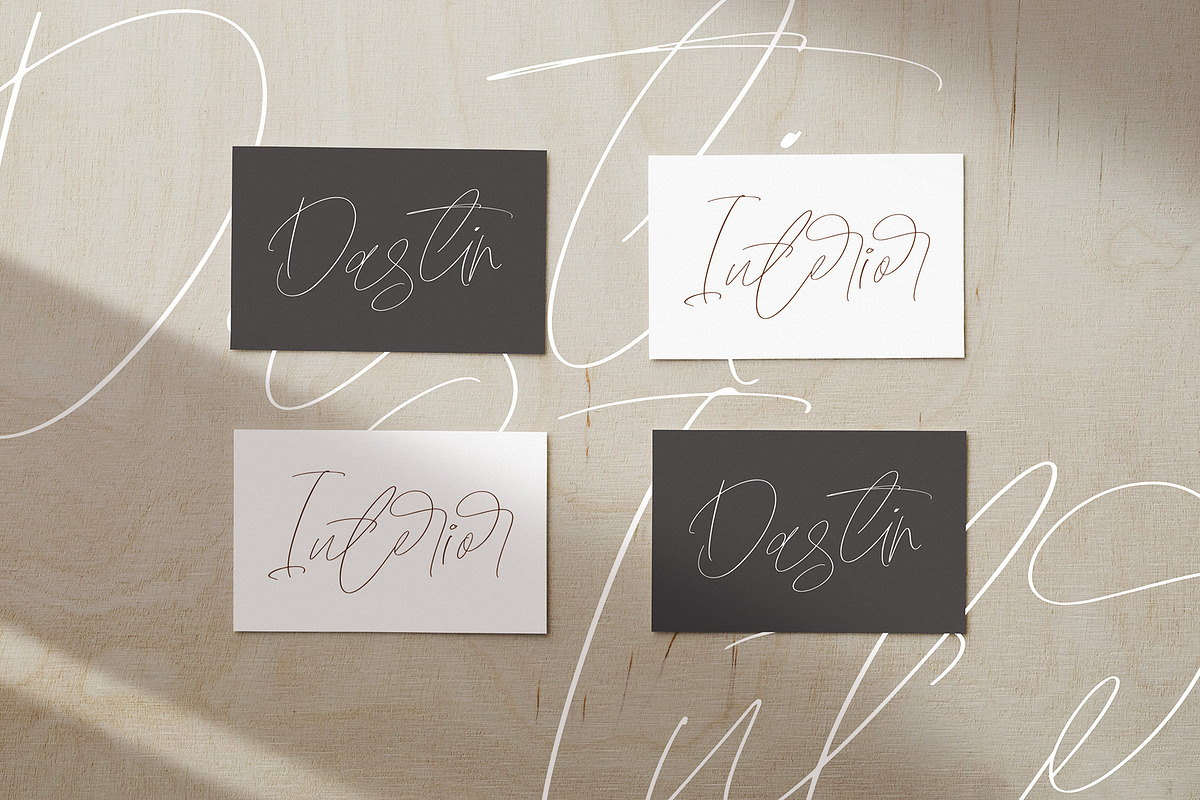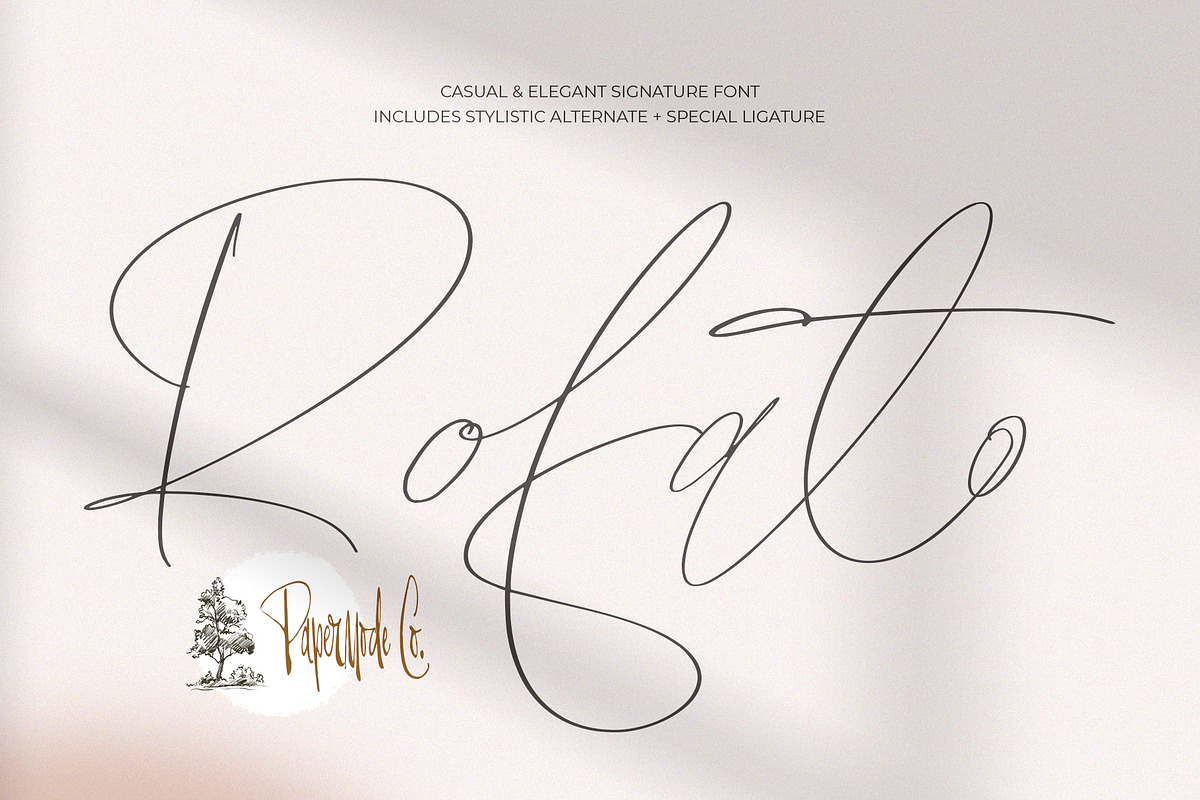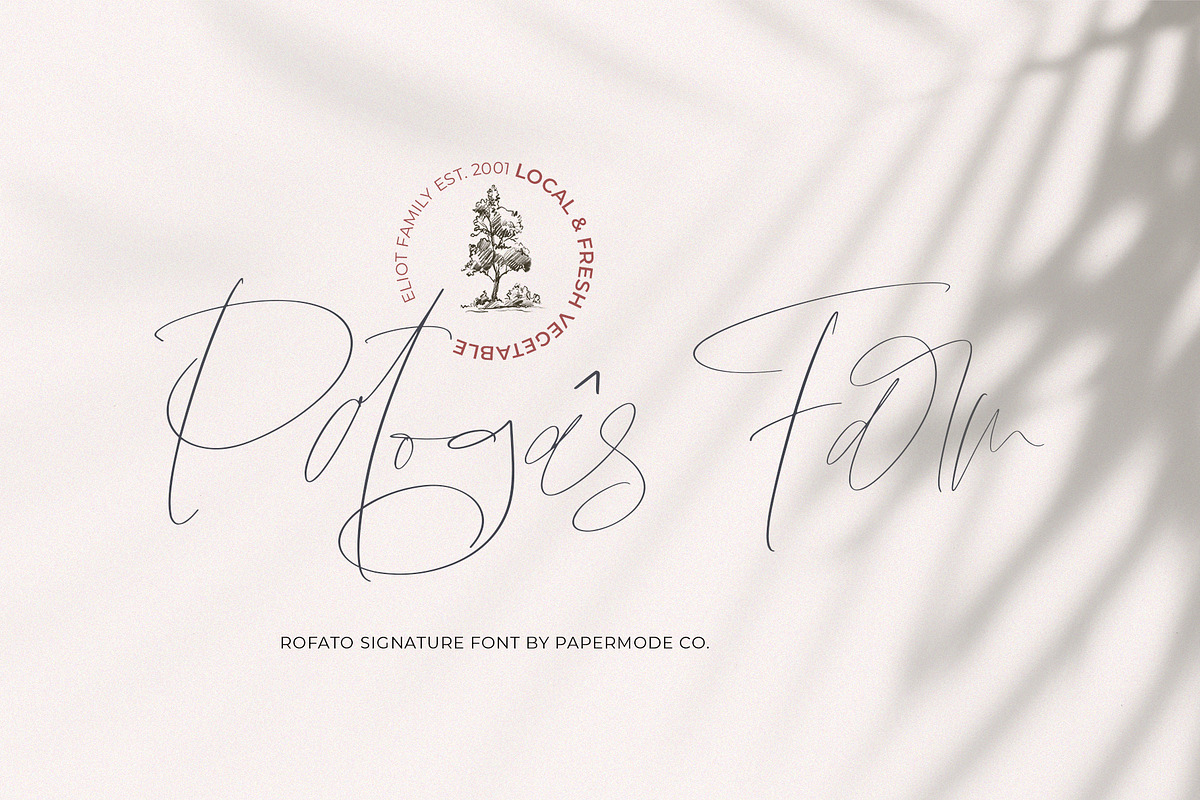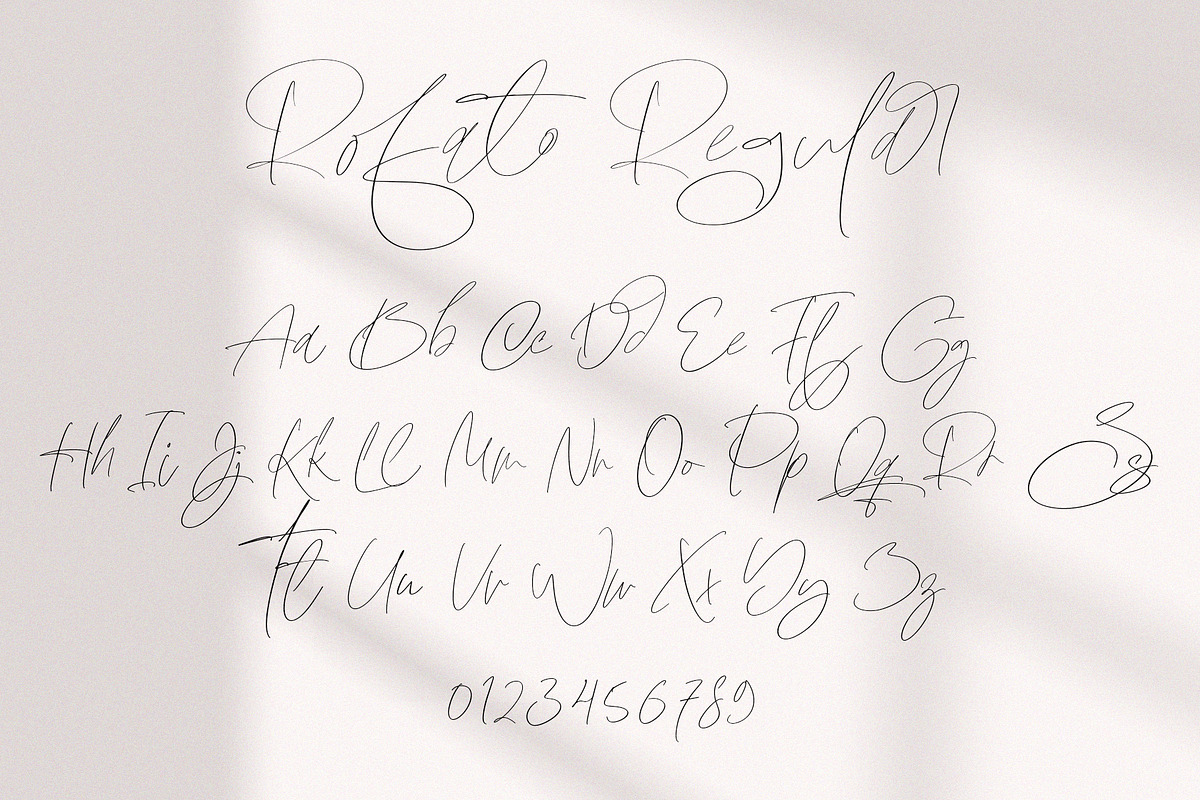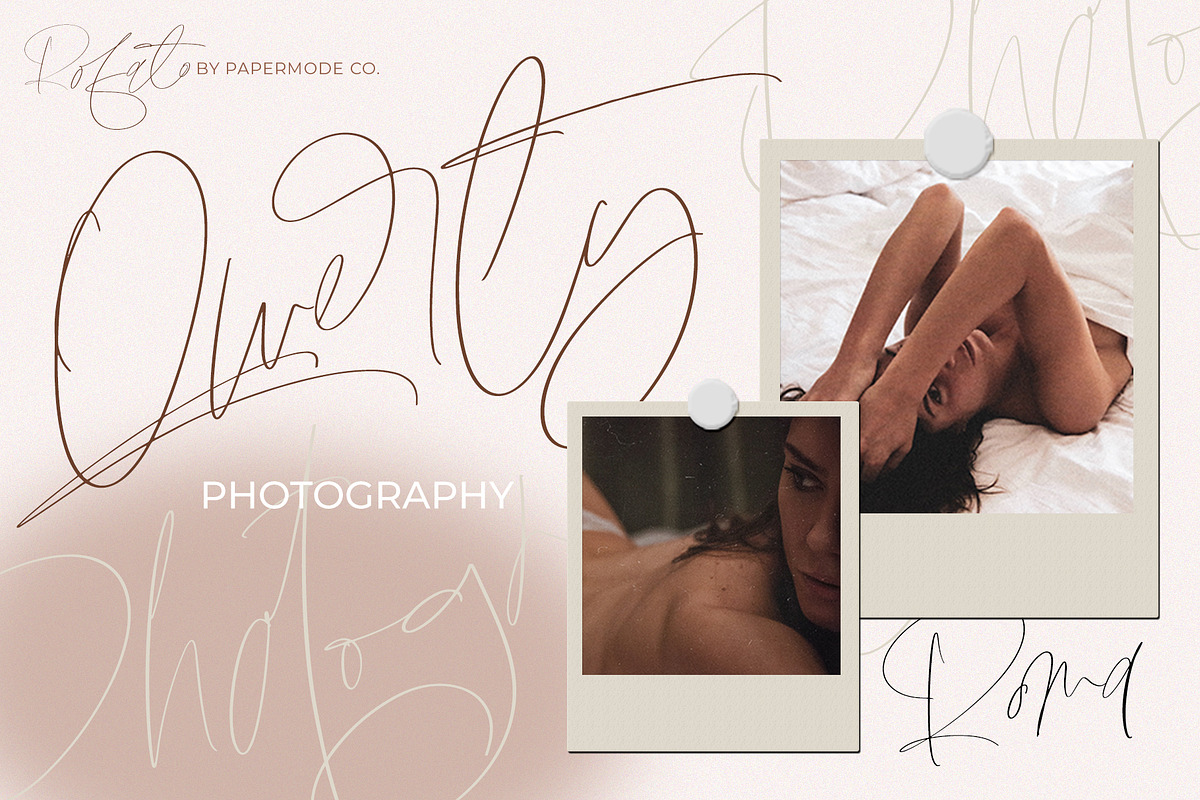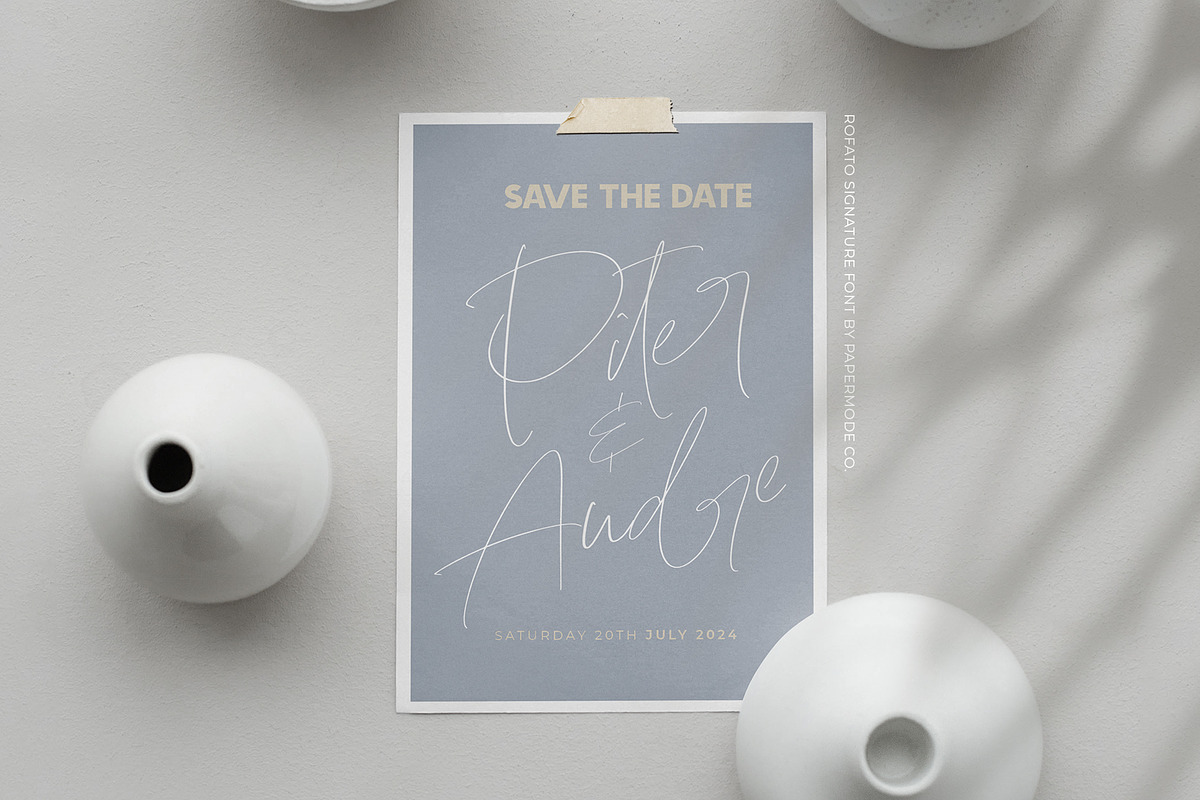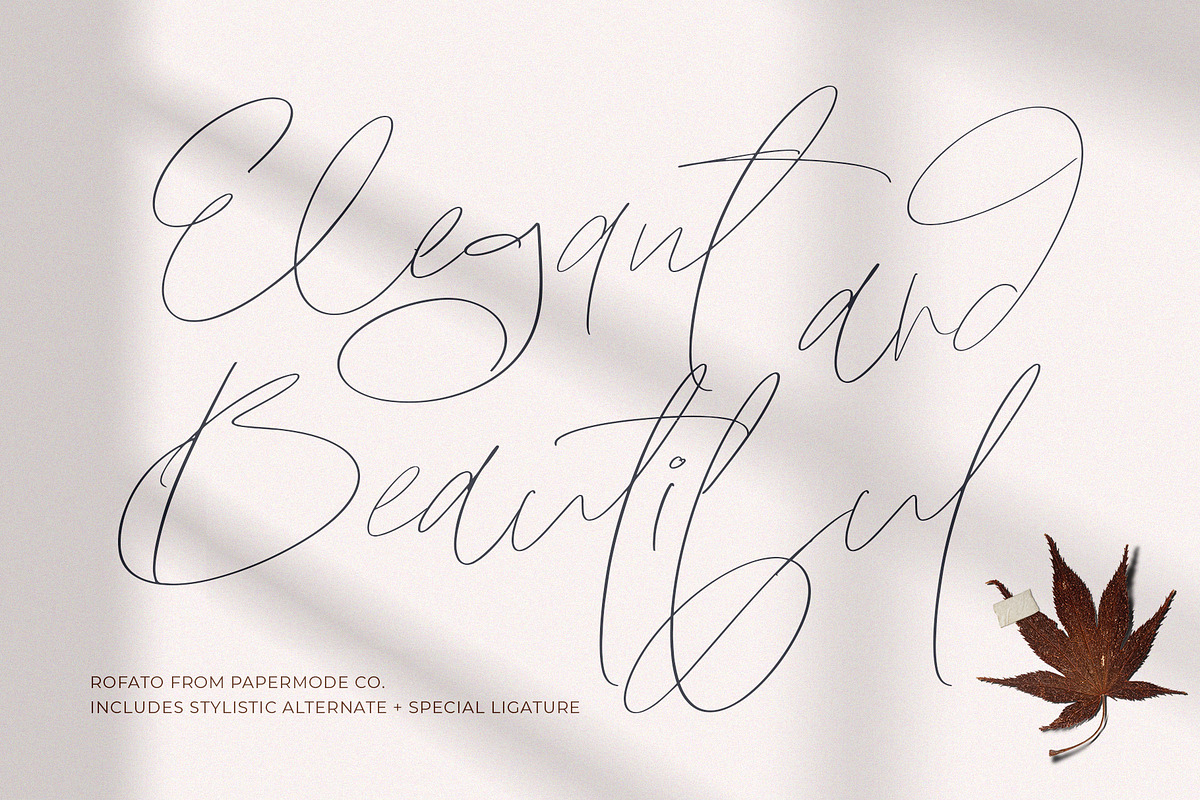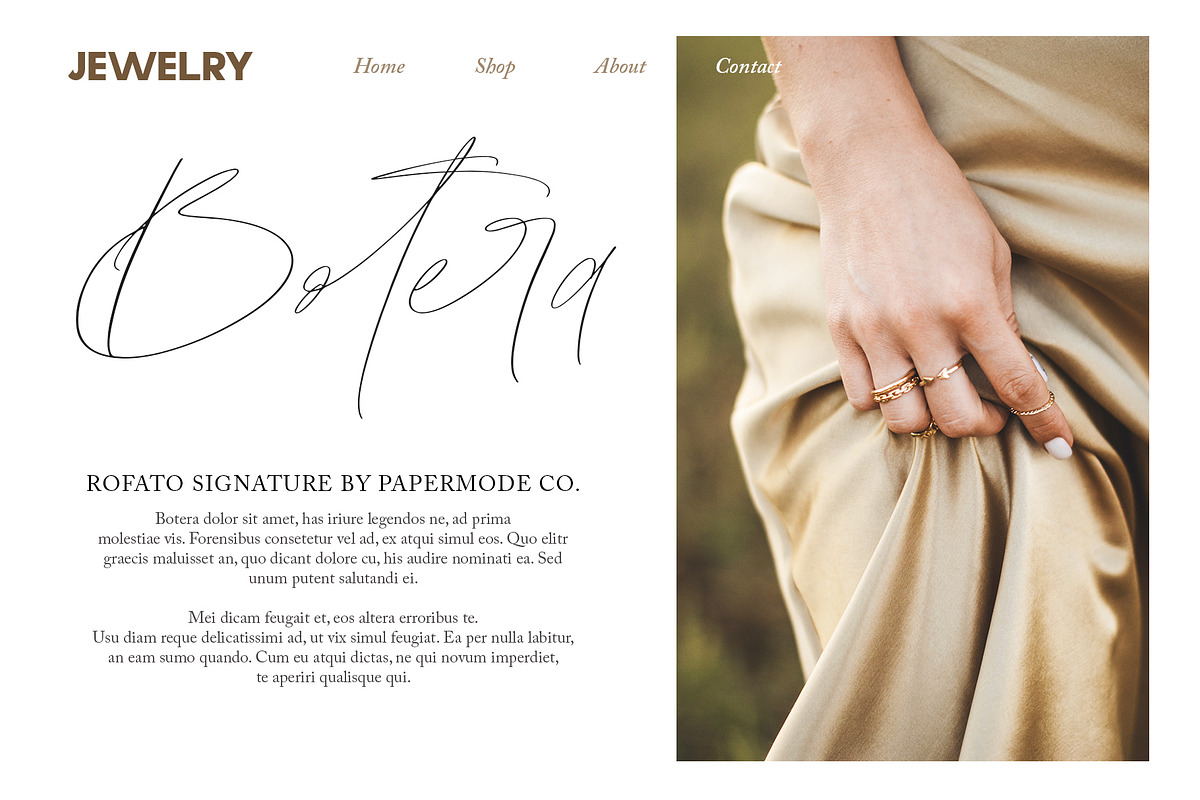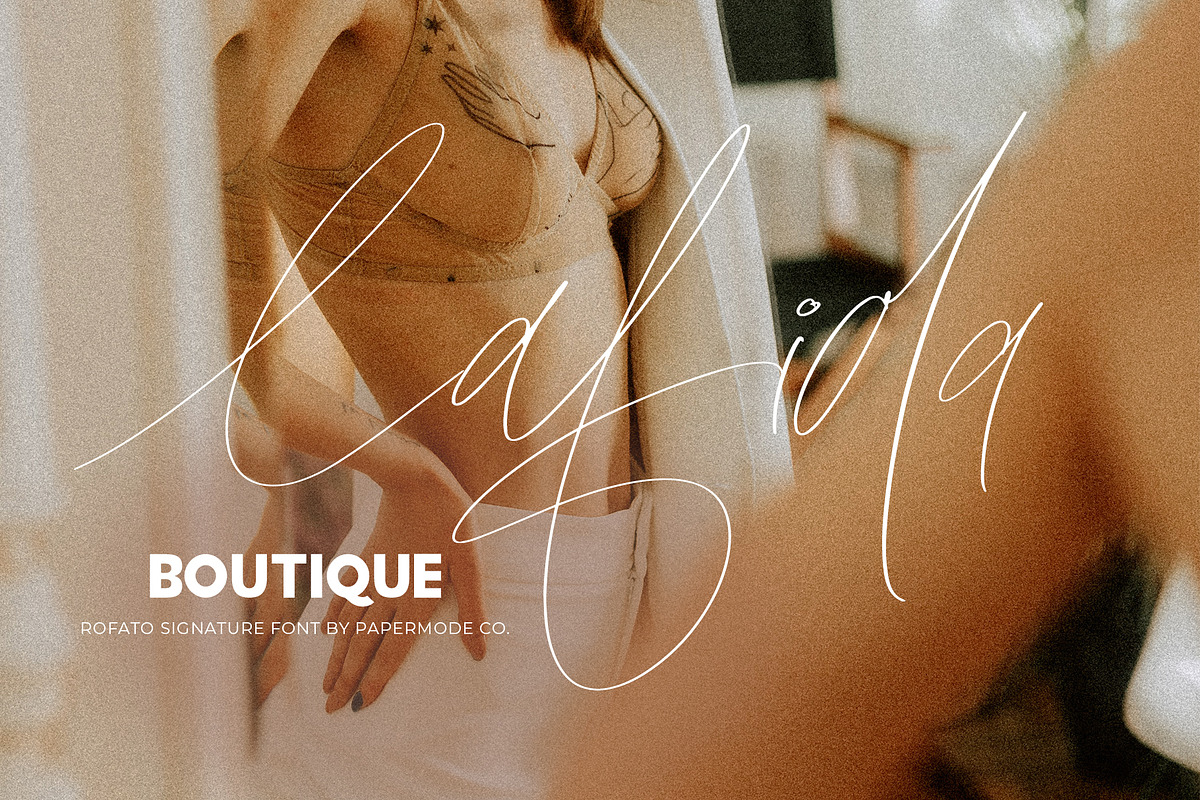
Rofato
Rofato is a beautiful and light handwritten font with a unique feel and a stunning impact. It will add a luxury spark to any design project that you wish to create! This font is PUA encoded which means you can access all of the amazing glyphs and ligatures with ease!
Try Rofato, enjoy the richness of OpenType features and let her fun and elegant excitement make you happy and enhance your creativity! You can use this font very easily.
Included multiligual support and special ligatures